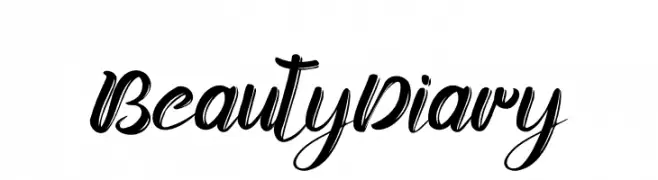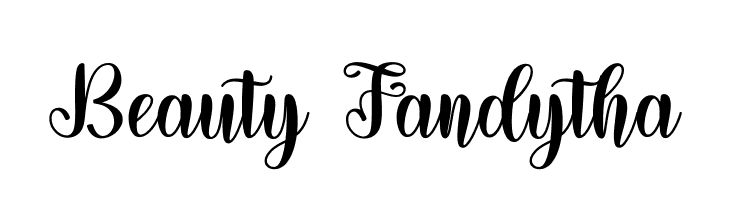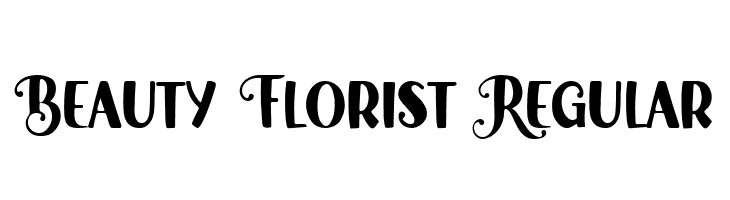
An elegant, cursive italic font with flowing, sophisticated strokes.
A playful, whimsical handwritten font with a festive and elegant style.
A bold, brush-style font with dynamic, hand-painted strokes.
A playful and elegant script font with bold, flowing characters.
A bold, expressive script font with flowing cursive letterforms.
An elegant, flowing script font with a handwritten style.
A playful and elegant script font with smooth curves and artistic loops.
An elegant, flowing script font with a cursive, handwritten style.
A decorative and bold font with playful swirls and flourishes.